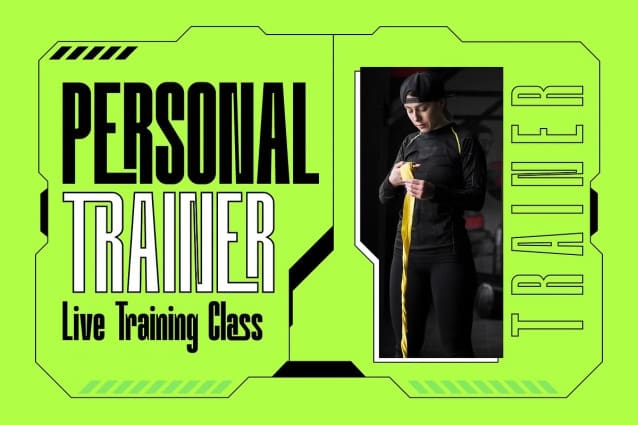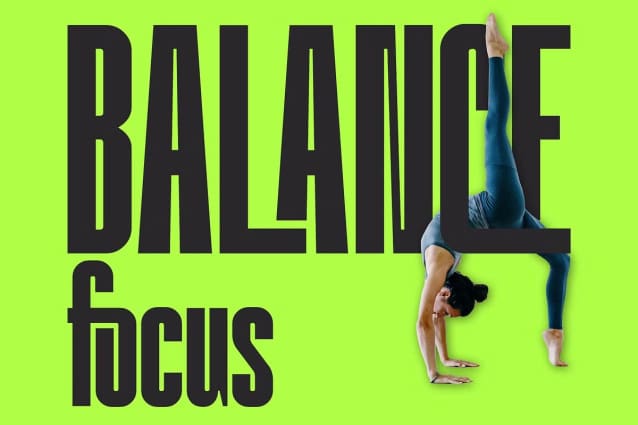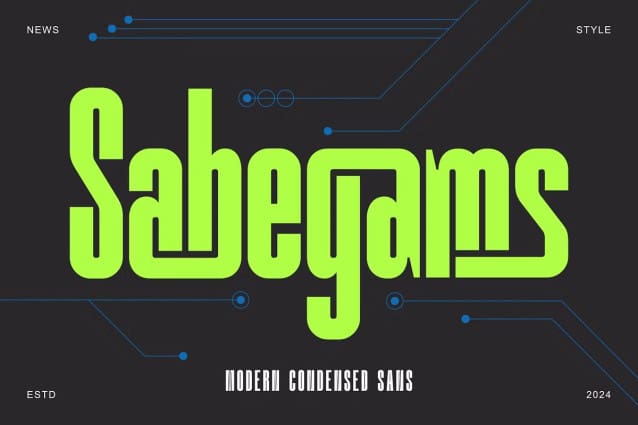
Sabegams Font
Sabegams Font, an exquisitely modern condensed sans serif font that epitomizes the pinnacle of typographic innovation. Crafted with sleek contours and contemporary finesse, Sabegams stands as a beacon of both style and practicality, distinguished by an extensive suite of finely honed ligatures.
The precision-engineered condensed format of Sabegams Font is tailored to maximize spatial efficiency while ensuring impeccable readability. It’s the perfect choice for crafting eye-catching headlines, dynamic logos, striking packaging, or sophisticated web designs. Its streamlined structure delivers a powerful visual punch, ensuring your creations not only catch but hold the viewer’s gaze.
Sabegams Font truly shines through its impressive collection of professionally designed ligatures. These ligatures allow for smooth transitions between characters, lending an artistic fluidity to your typography. This feature not only enhances the sophistication of your designs but also imbues them with a unique character that elevates viewer engagement.
With its adaptability across various design contexts—from editorial layouts to branding, advertising, and digital interfaces—Sabegams embodies modern professionalism and aesthetic appeal. It’s an ideal choice for those aiming to project a clean, tech-savvy, or avant-garde image.
Sabegams is not just about aesthetic appeal; it’s a canvas for your creativity, offering a modern condensed format enriched by over 114 ligatures that invite you to craft compelling, unforgettable designs.